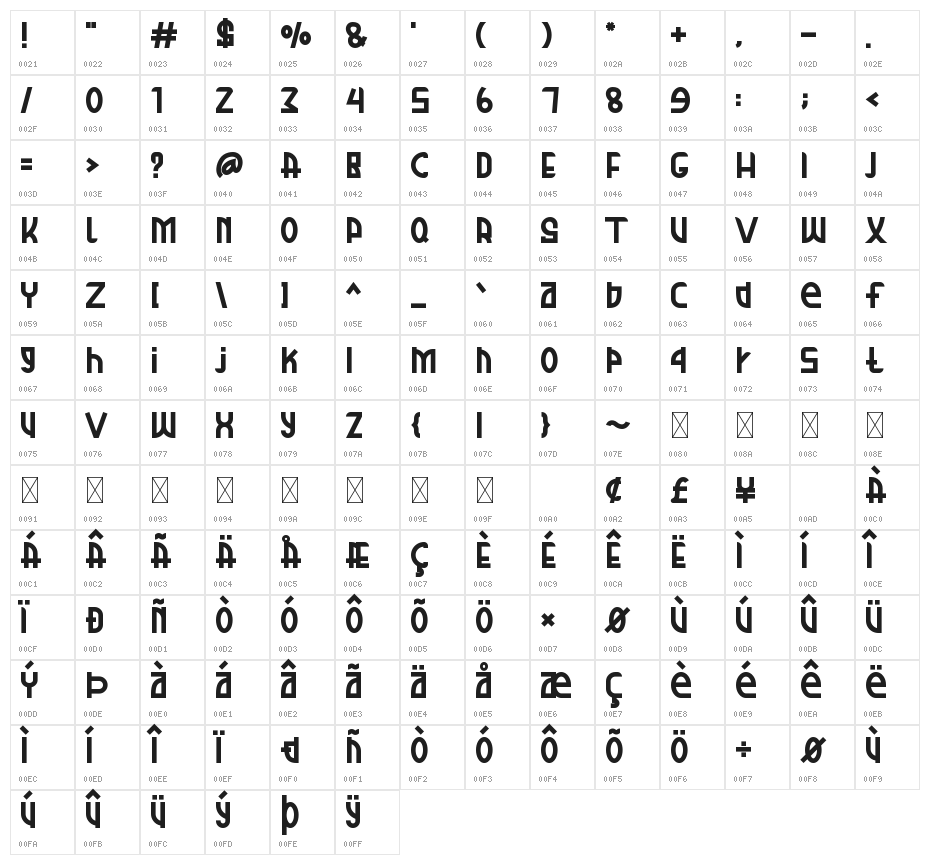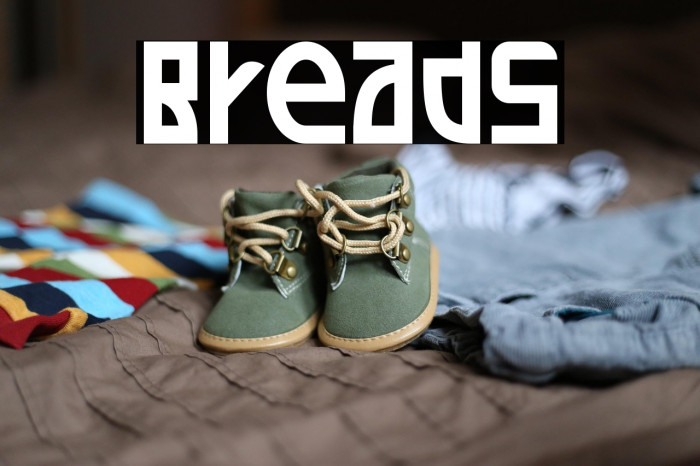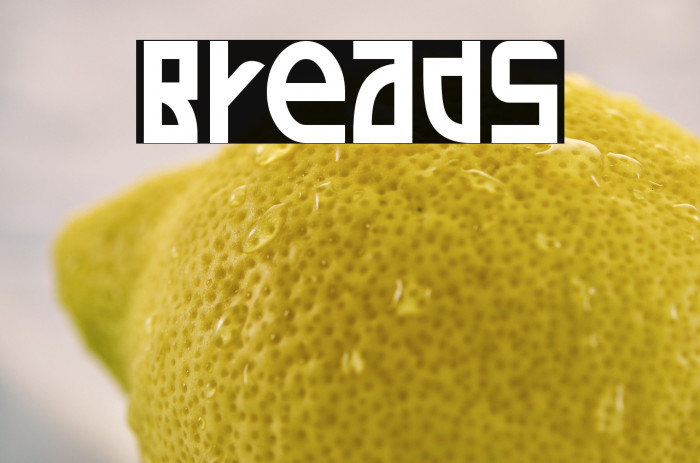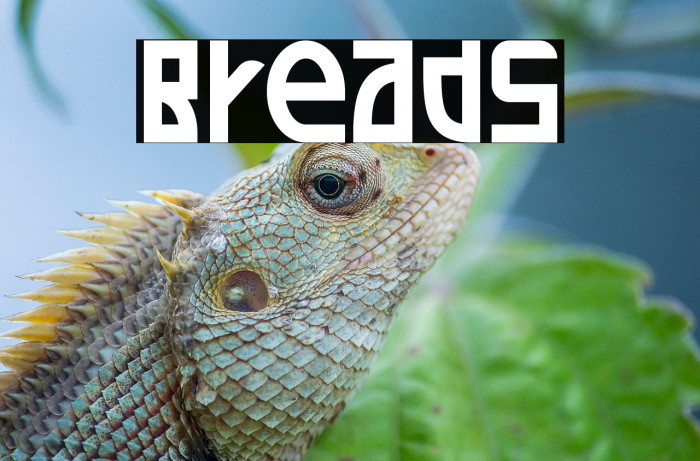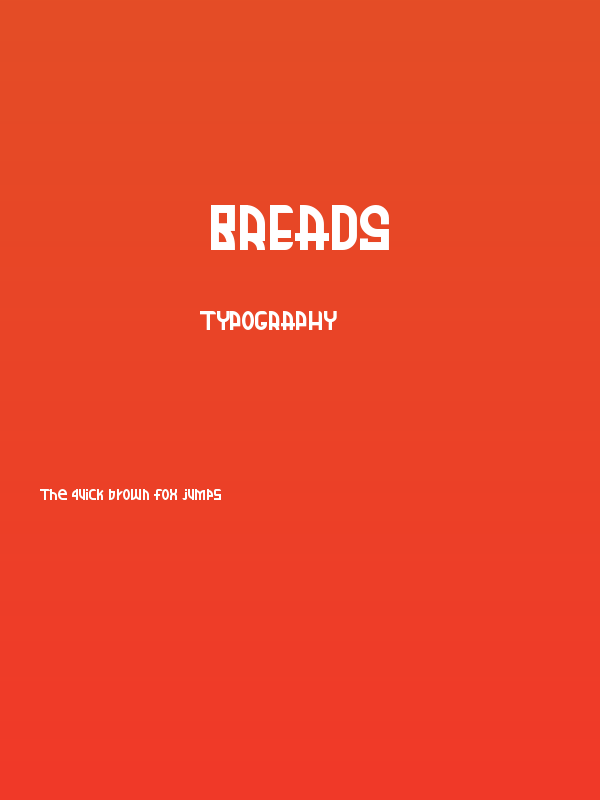
Breads Font
This font features a bold and geometric design with a modern flair. The characters are constructed with strong, angular lines and a consistent stroke width, giving it a robust and impactful appearance. The uppercase and lowercase letters maintain a cohesive style, with unique elements such as the angular cuts and sharp edges that add a distinctive touch. The numerals and special characters follow the same design principles, ensuring uniformity across all glyphs. This font's boldness and geometric nature make it suitable for attention-grabbing designs.
| Proposed Projects | Ideal for branding, posters, headlines, and any design requiring a strong visual impact. |